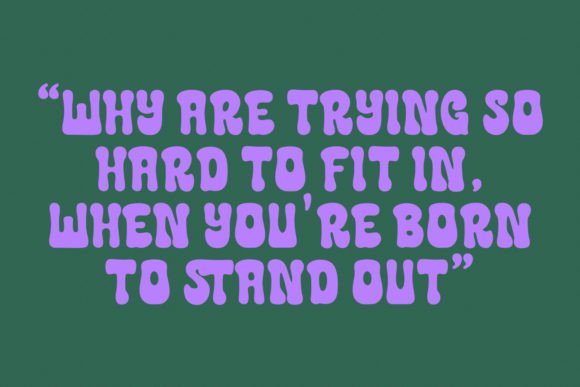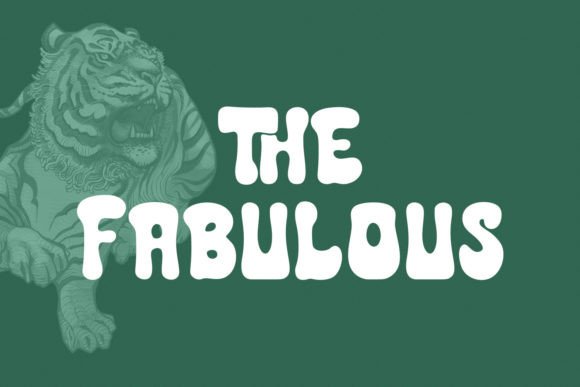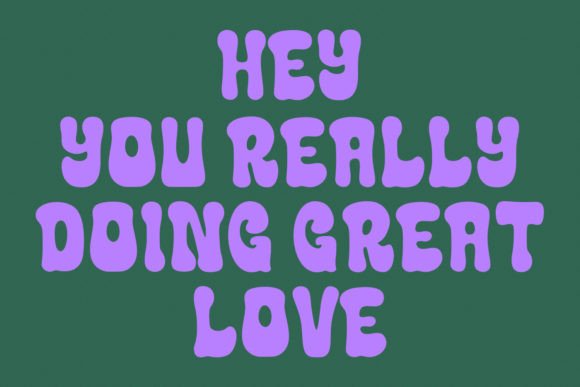
Introduction to Maylow Font
You’re sitting at your desk, surrounded by scattered papers, half-finished designs, and a cup of cold coffee. The clock is ticking, and you’re searching for that perfect font to bring your creative project to life. Suddenly, you stumble upon a font that makes you smile – the Maylow Font.
With its expressive, groovy display style, the Maylow Font is the epitome of retro casual design. Its unique vibe is perfect for creating whimsical and hippie-inspired designs that will transport your audience to a bygone era. Whether you’re a seasoned designer or a beginner looking for a high-quality design resource, the Maylow Font is an invaluable addition to your toolkit.
Key Features of Maylow Font
- High-quality, unique font design suitable for creative projects, offering a touch of elegance and sophistication.
- Comes with a transparent background, allowing for easy integration into various design resources and backgrounds.
- Supports a wide range of languages, making it a versatile font for international design projects.
Honest Review: Maylow Font
As a designer, I’m always on the lookout for high-quality fonts to elevate my creative projects. The Maylow Font caught my attention with its elegant and modern design.
- ✨ Versatility: The Maylow Font can be used for a wide range of design projects, from logo designs to typography-based artworks.
- ✨ High Quality: The font is well-crafted, with crisp lines and smooth curves that make it perfect for high-resolution designs.
- ⚠️ Limited Character Set: The Maylow Font has a limited character set, which may not be suitable for projects that require extensive typing.
- ⚠️ No Extended Versions: There are no extended versions of the Maylow Font available, which may limit its use for large-scale designs.
Overall, the Maylow Font is a solid addition to any designer’s toolkit. Its elegant design and high-quality rendering make it perfect for a wide range of creative projects. While it has some limitations, the free download and transparent background make it a valuable design resource.
The Maylow Font is commonly used for various design projects, including logos, business cards, brochures, and social media graphics. Its transparent background makes it easy to use in various design applications, allowing for a seamless integration with other design elements.